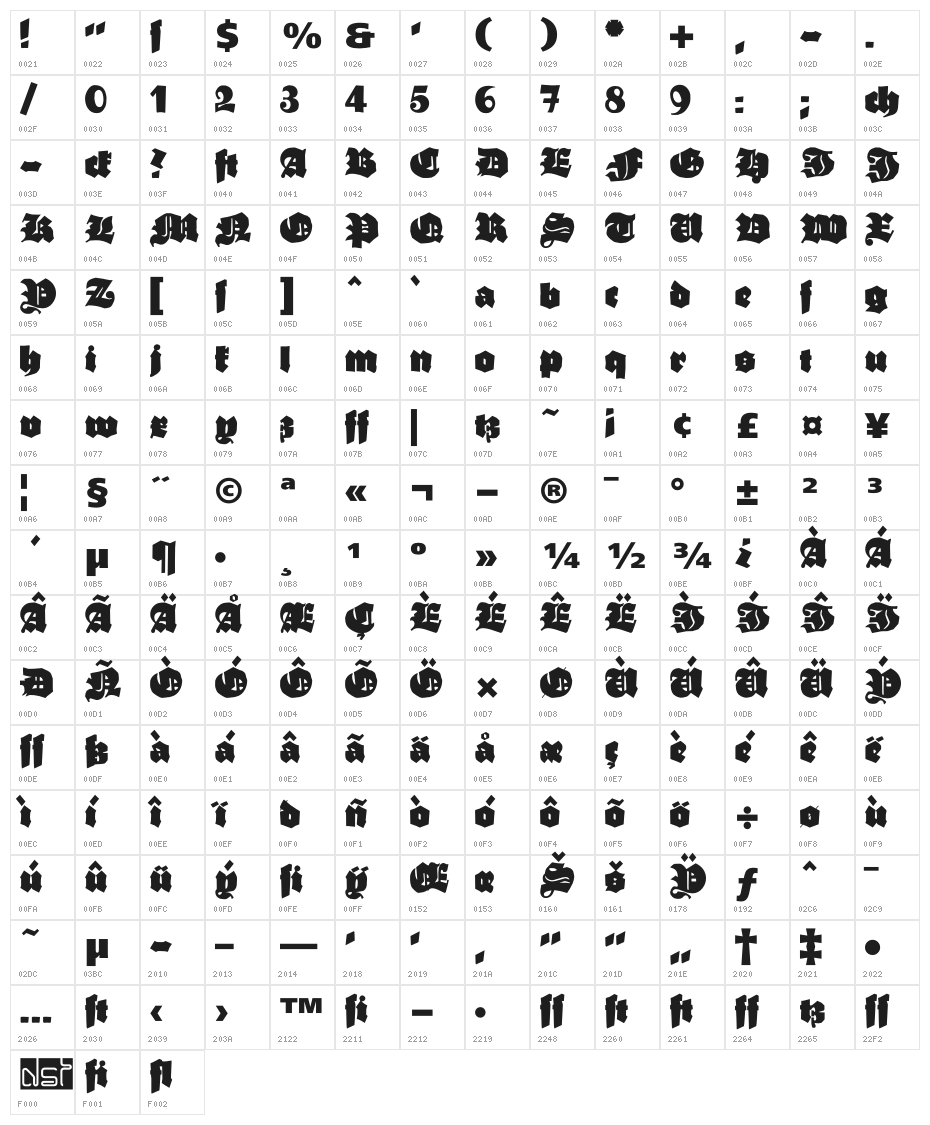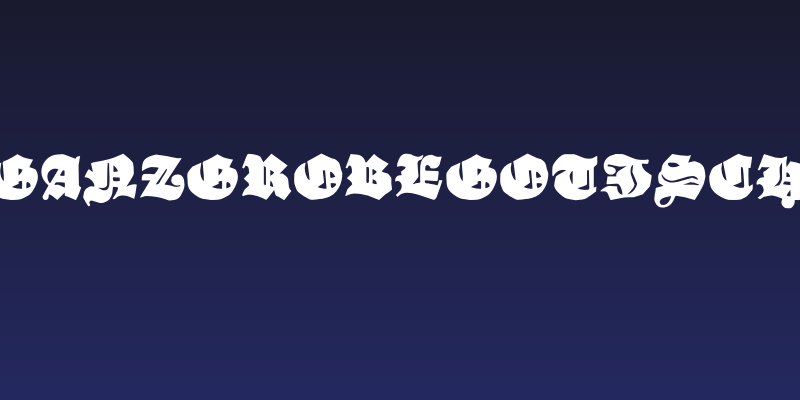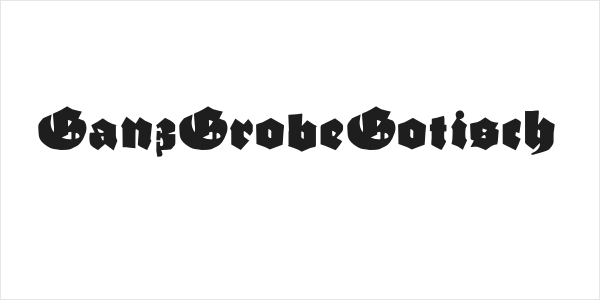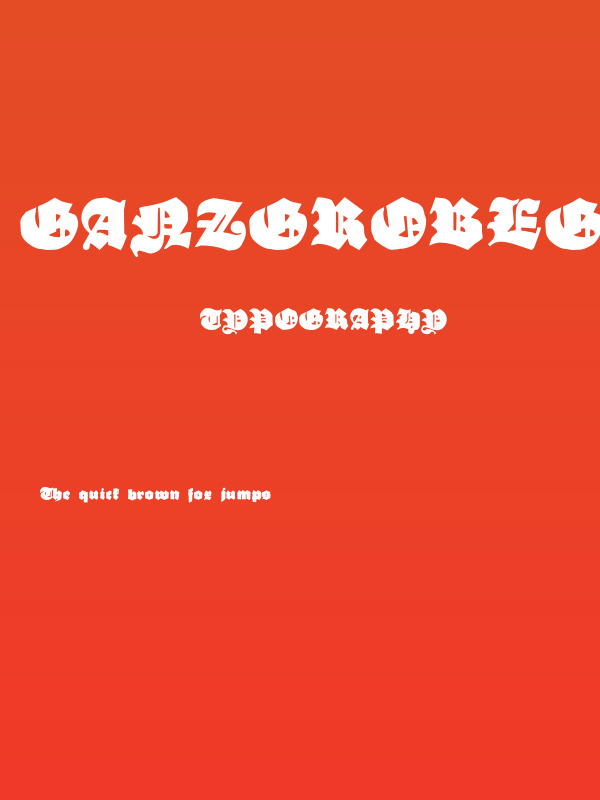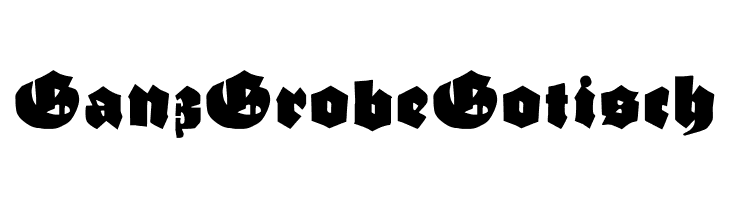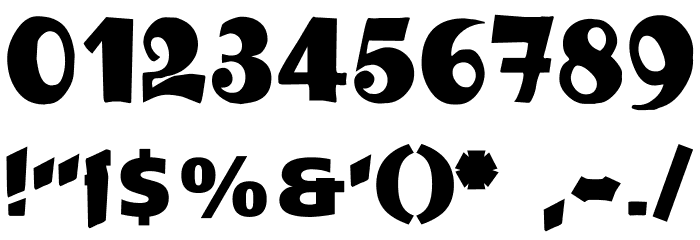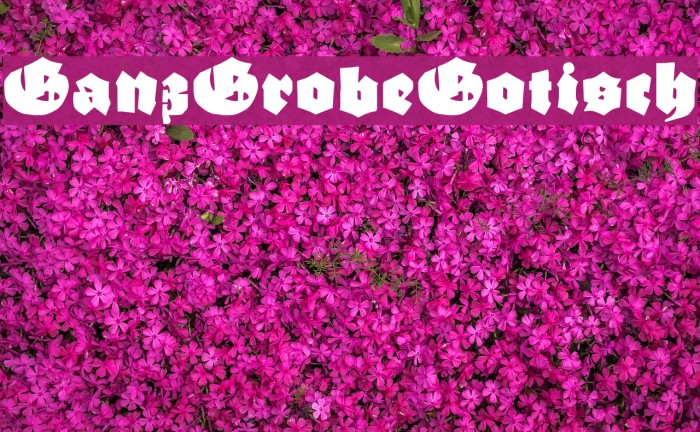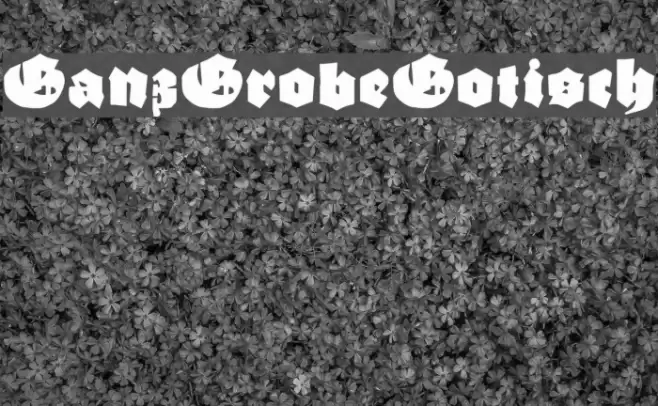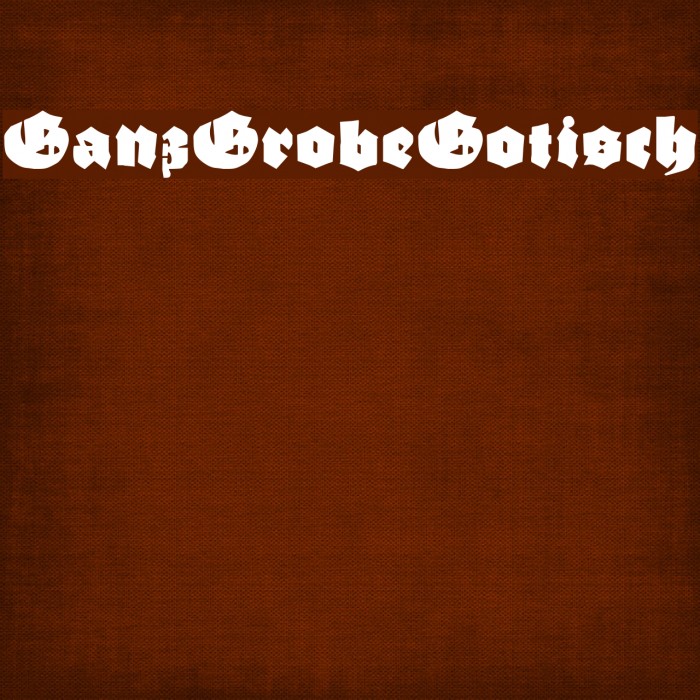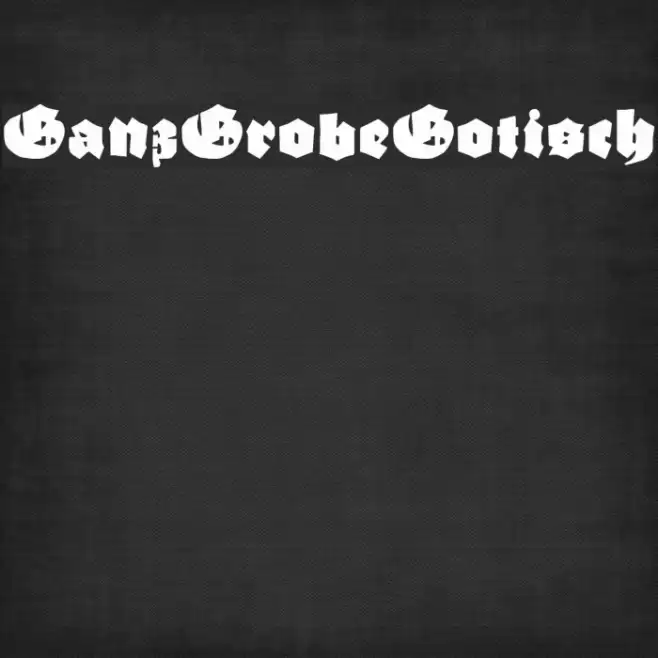
GanzGrobeGotisch Font
| Cas d'utilisation | Logos, Headlines, Decorative purposes |
| Projets proposés | Suitable for historical documents, gothic-themed designs, book covers, posters, and branding that requires a medieval aesthetic. |